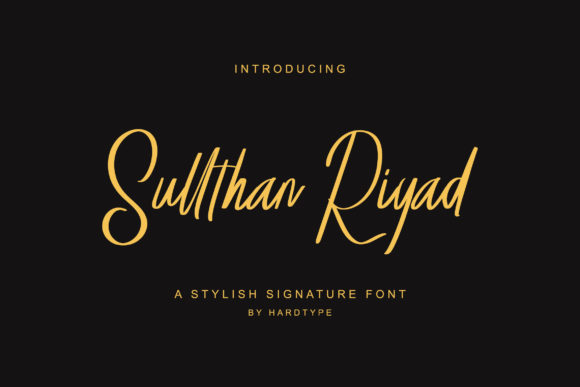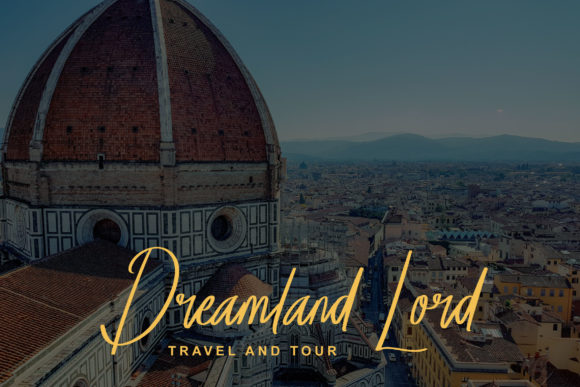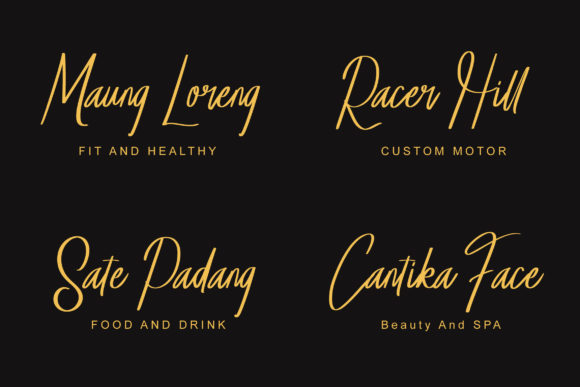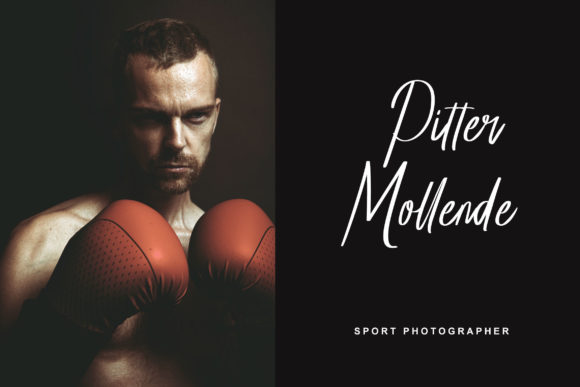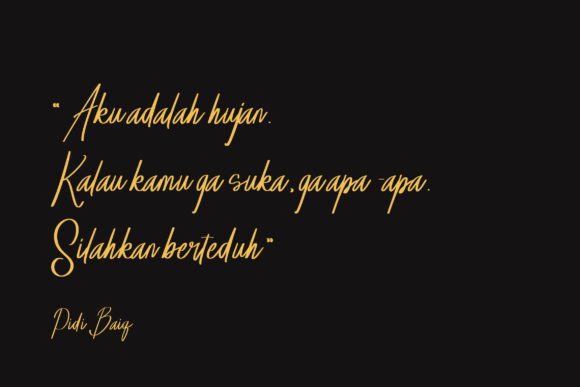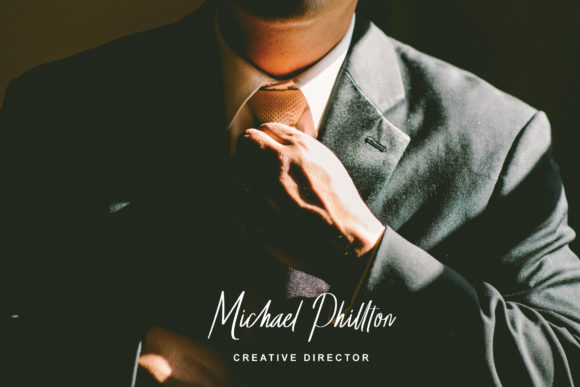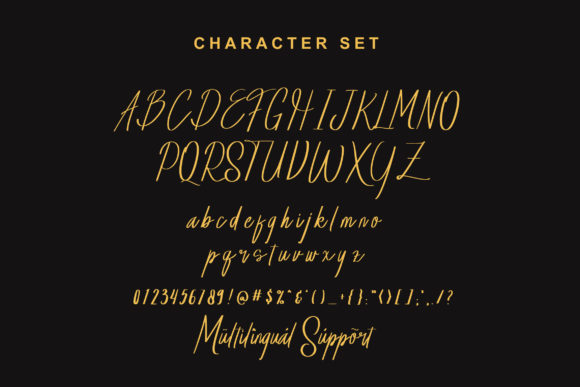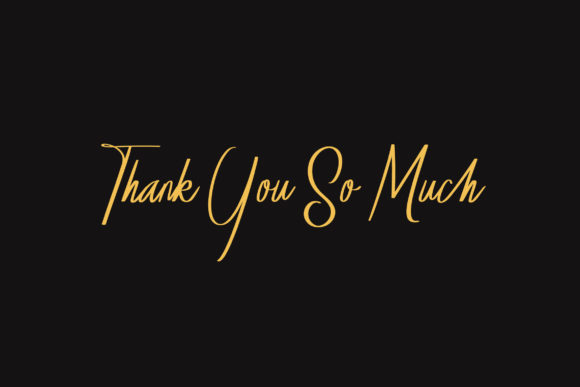
Sullthan Riyad Font
About Sullthan Riyad Font
Introducing “Sullthan Riyad,” a stylish and elegant font that is perfect for adding a customized touch to your designs. With its sophisticated look, Sullthan Riyad is an excellent choice for various projects, including thank you cards, quotes, greeting cards, logos, business cards, and more.
This font features sleek and refined letterforms that exude a sense of elegance and professionalism. The clean lines and balanced proportions give Sullthan Riyad a polished and sophisticated appearance, making it suitable for a wide range of design applications.
Whether you’re designing a thank you card to express gratitude, creating a memorable quote graphic, designing a striking logo, or crafting a professional business card, Sullthan Riyad will add a touch of class and customization to your project.
The versatility of Sullthan Riyad allows it to be seamlessly incorporated into various design styles and themes. Its timeless aesthetic ensures that it can adapt to both contemporary and traditional design contexts, making it a reliable choice for any project that requires a customized and elegant touch.
With Sullthan Riyad, you can confidently create visually stunning and memorable designs that leave a lasting impression. Its attention to detail and carefully crafted letterforms make it a standout font that adds a touch of sophistication to your creative endeavors.
In summary, Sullthan Riyad is a stylish and elegant font that is perfect for projects that require a customized touch. From thank you cards to logos, this font will elevate your designs and give them a sophisticated and polished appearance. With its versatility and timeless aesthetic, Sullthan Riyad is an excellent choice for adding a touch of class to any design project.